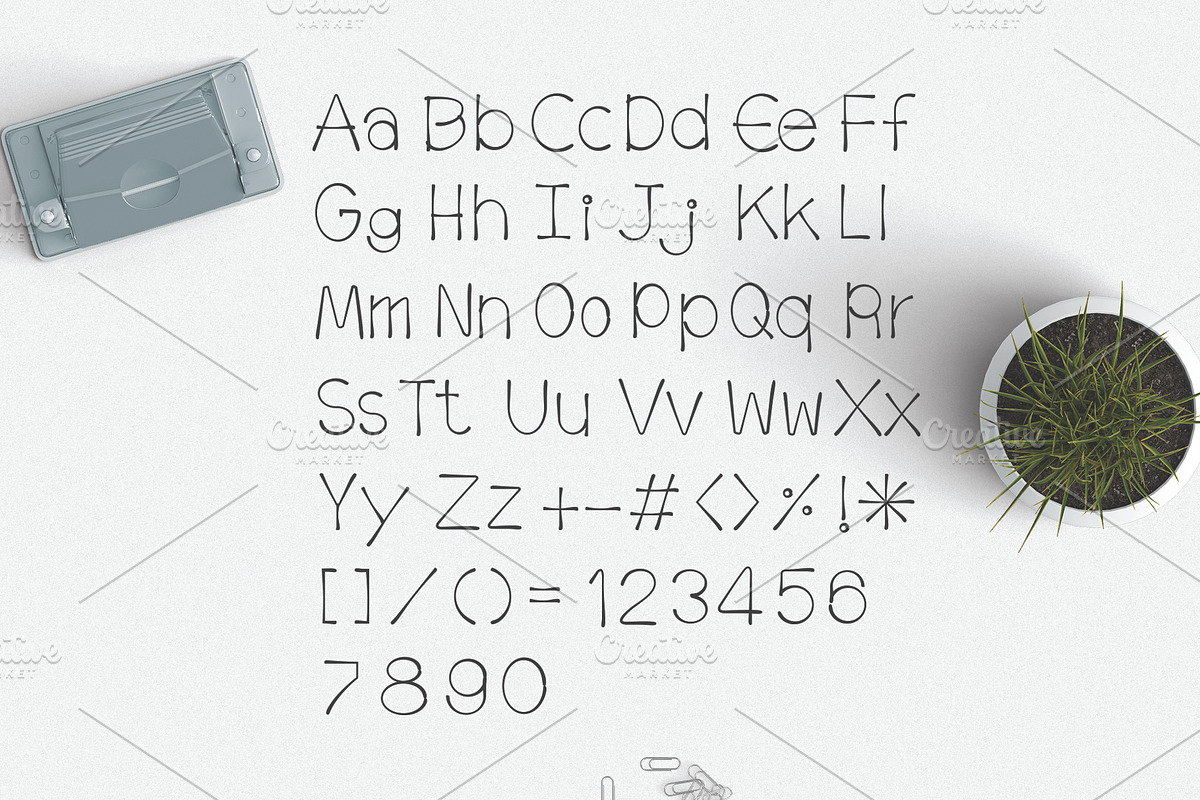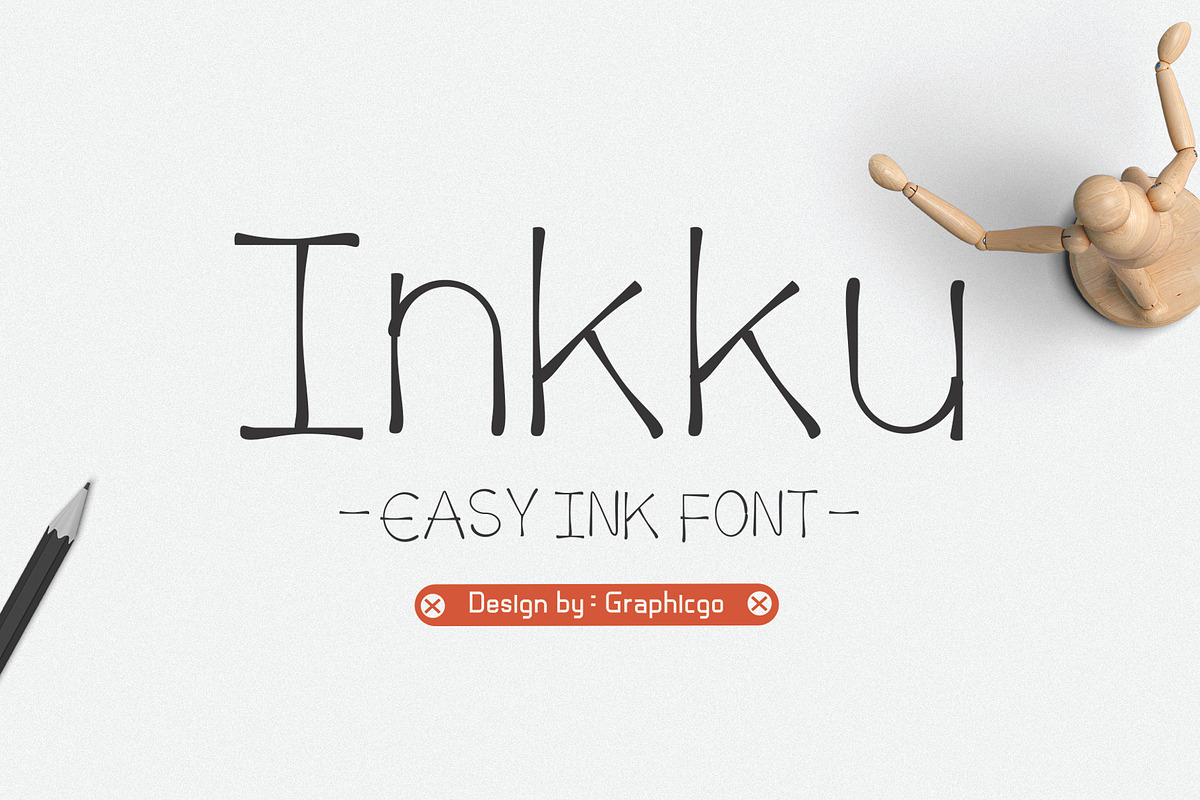
Inkku Font
Hello : ) Inkku is a simple and thin ink brush line with clean look font. It comes with
uppercase and Lowercase
- It comes with Number Simple math signs uppercase and Lowercase Good Luck and Have fun !
Inkku Font by Graphicgo fits naturally into Branding, posters, packaging, typography.